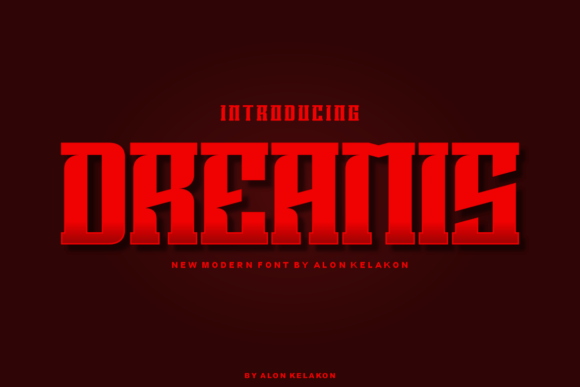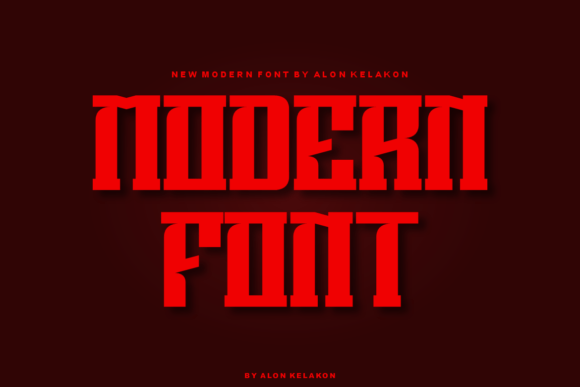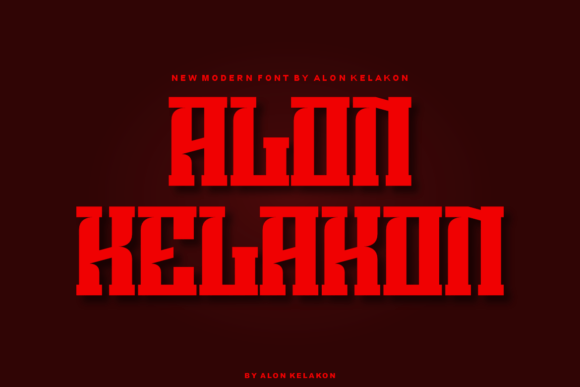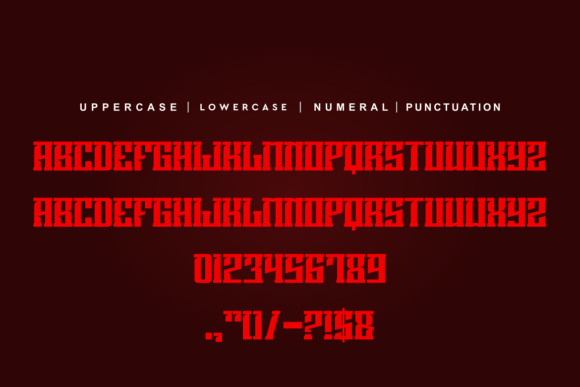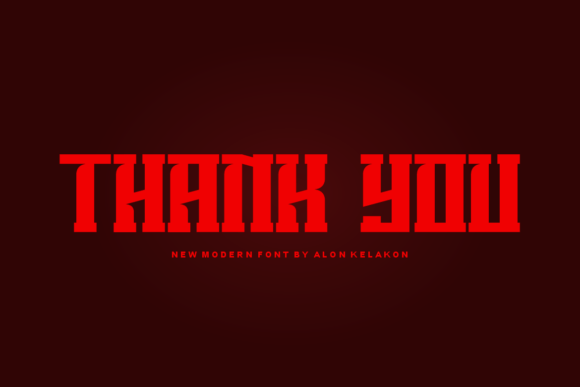
The Birth of a New Creative Era
Have you ever found yourself stuck in the middle of the night, staring at a blank canvas, waiting for inspiration to strike? The blank page stares back at you, taunting you with its emptiness. But then, suddenly, it hits you – a burst of creativity that sets your imagination ablaze. The possibilities start to swirl in your mind, and you can’t wait to bring them to life.
For designers, this moment is a familiar one. It’s the spark that ignites the creative process, leading to innovative and breathtaking designs. And that’s where Dreamis Font comes in – a unique and versatile font that’s ready to be used in a multitude of creative projects, from labeling and clothing to movie screens and album covers.
Dreamis Font Key Features
- Font Size: 3,000+ glyphs, offering extensive coverage for various languages and scripts.
- Unique Characteristics: Dreamis Font features a unique blend of modern and elegant design elements, making it perfect for luxury, fashion, and high-end branding.
- Language Support: Supports multiple languages, including Latin, Cyrillic, Greek, and many more, making it a versatile choice for global branding.
- Font Weight: Available in 8 different weights, from Light to Black, allowing for precise control over typography and visual hierarchy.
Dreamis Font Review
I recently had the chance to work with the Dreamis font, and I’m excited to share my honest thoughts with you. Here’s the lowdown:
- Unique Character: Dreamis font has a distinctive, whimsical feel that sets it apart from more traditional fonts. Its unusual letterforms add a touch of personality to any design.
- Legibility: Despite its playful appearance, Dreamis font is surprisingly easy to read, even at smaller font sizes.
- Typography Options: The font family includes a range of weights and styles, offering plenty of flexibility for designers.
- Lack of Consistency: Some users may find the font’s irregularities distracting, particularly in body text where consistency is key.
- Overuse: The font’s distinctive style can be overwhelming if used too extensively, so be sure to balance it with other typography options.
Overall, I think Dreamis font is a great choice for designers looking to add some personality to their work. While it may not be suitable for every project, its unique character and versatility make it a valuable addition to any font collection.
Tips for Getting the Most Out of Dreamis Font